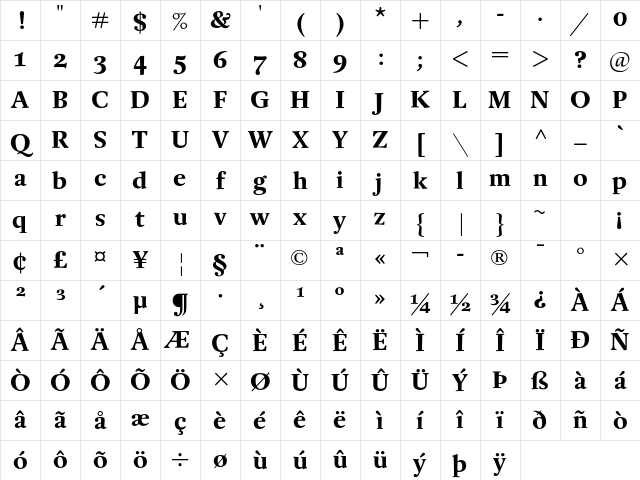
Buccardi Std Bold
Design Context for Buccardi Std
Buccardi Std is a composed and adaptable typeface that performs quietly and consistently across a wide range of design contexts. Its bold stroke weight gives it real presence on the page.